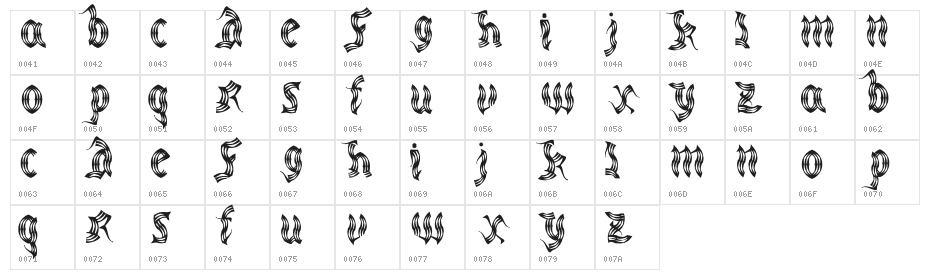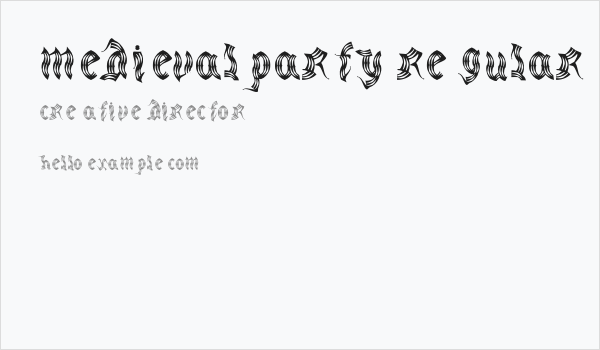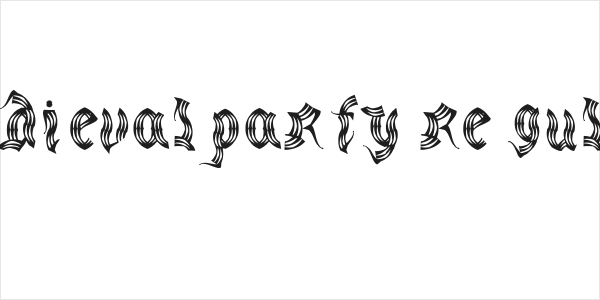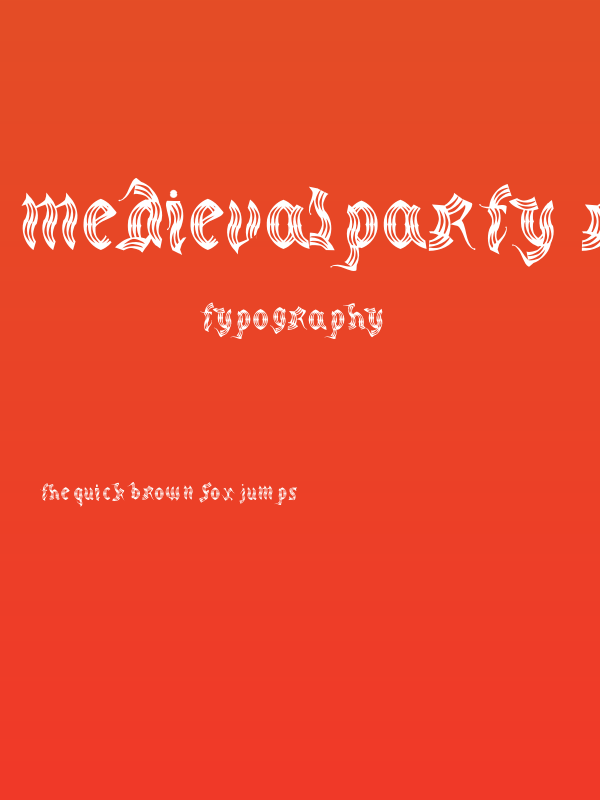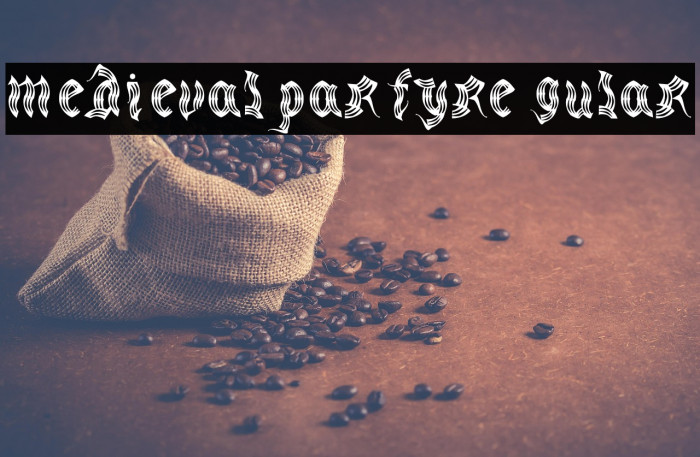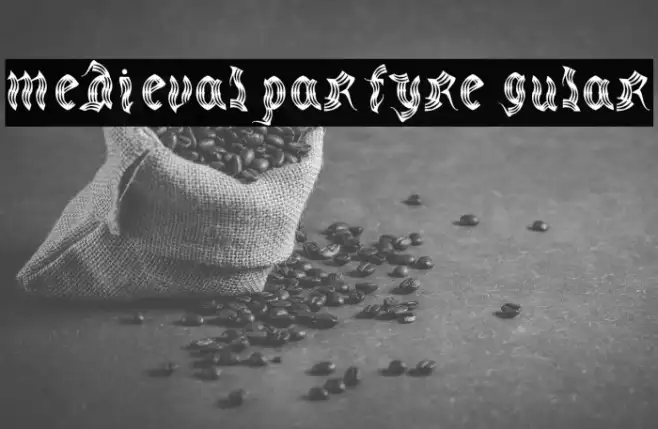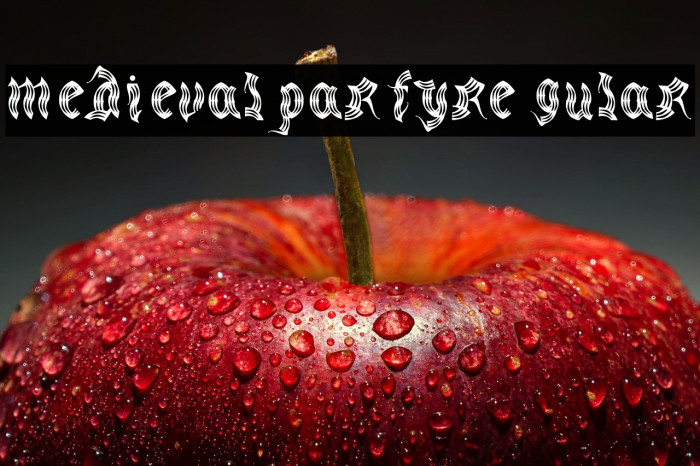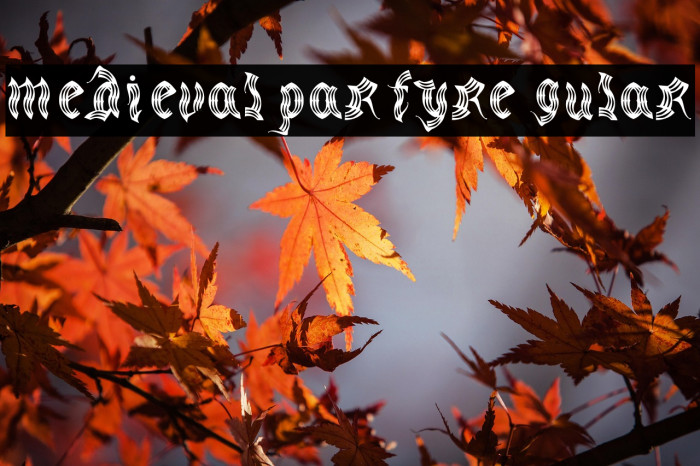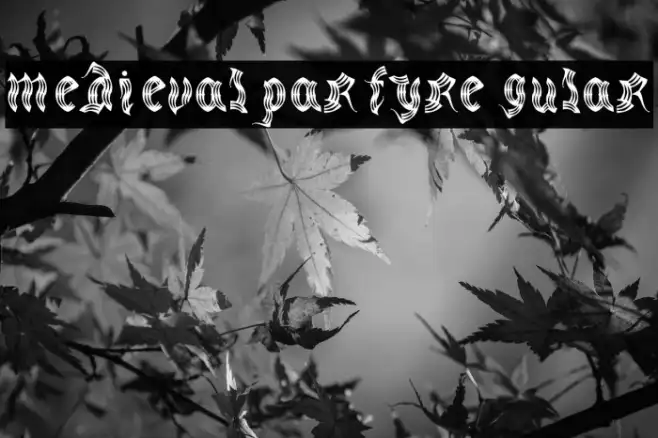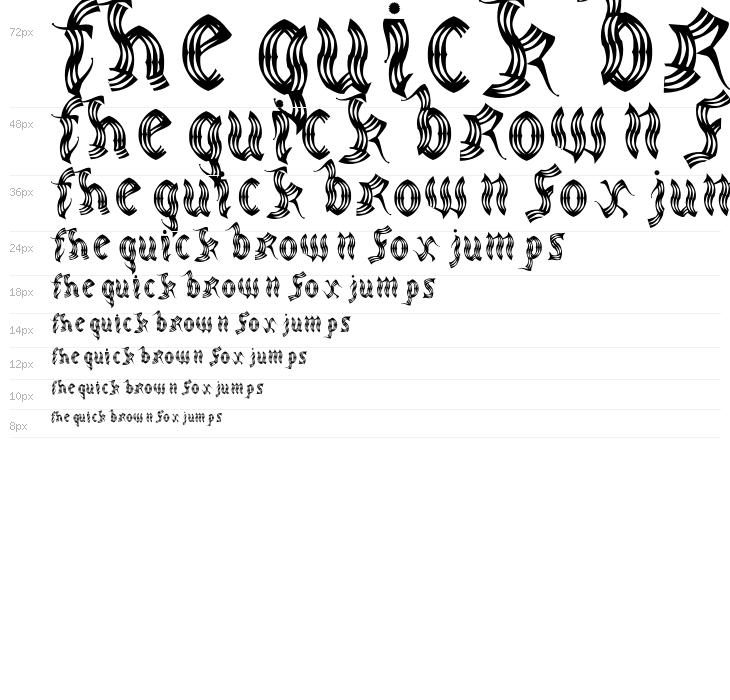
medievalparty-Regular Font
medievalparty-Regular Description
This font exudes a distinctly medieval aesthetic, characterized by its intricate and ornate design. The letters are crafted with a series of bold, flowing strokes that intertwine to create a sense of movement and complexity. Each character is adorned with decorative elements that evoke the artistry of medieval manuscripts. The overall appearance is both dramatic and elegant, making it ideal for projects that require a historical or fantasy theme. The font's unique style captures the essence of a bygone era, offering a visually striking option for creative endeavors.
| Overall Style | Medieval, Decorative |
| Proposed Projects | Ideal for fantasy-themed designs, historical event invitations, or medieval-style branding. |